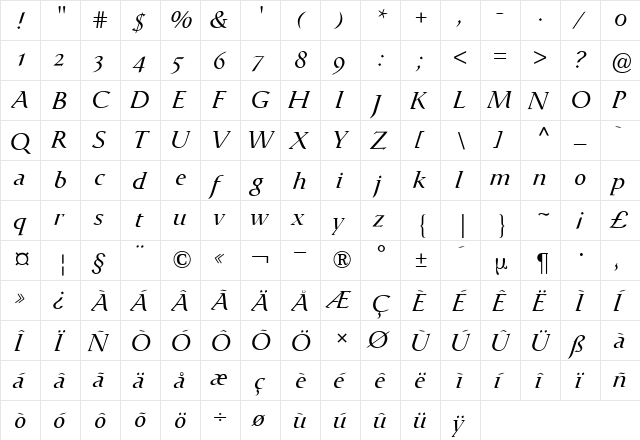
Catull Expert BQ Italic
Design Context for Catull Expert BQ Typeface
Catull Expert BQ is a composed and adaptable typeface that performs quietly and consistently across a wide range of design contexts. The dynamic lean of this cut emphasises speed and emphasis in any layout.
Pro Tip: Try Catull Expert BQ for annotation and caption copy alongside an upright companion — the contrast in angle creates a dynamic but ordered typographic system.